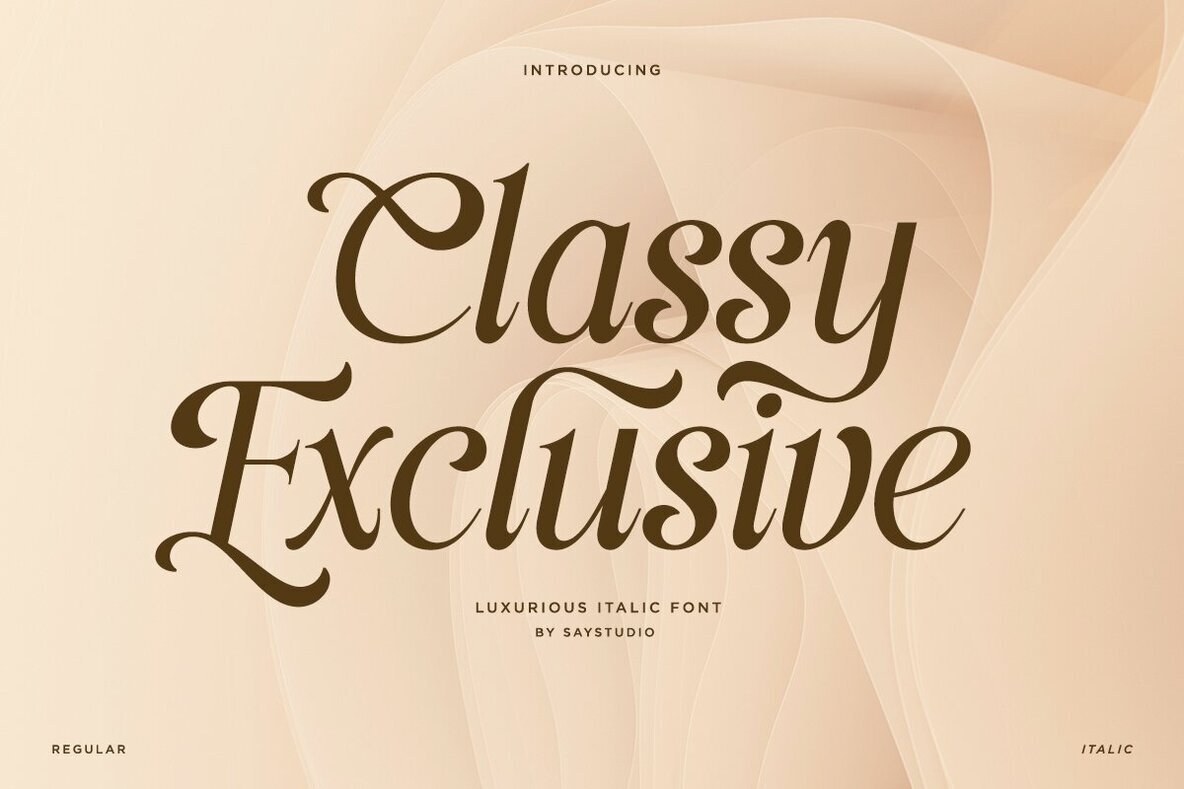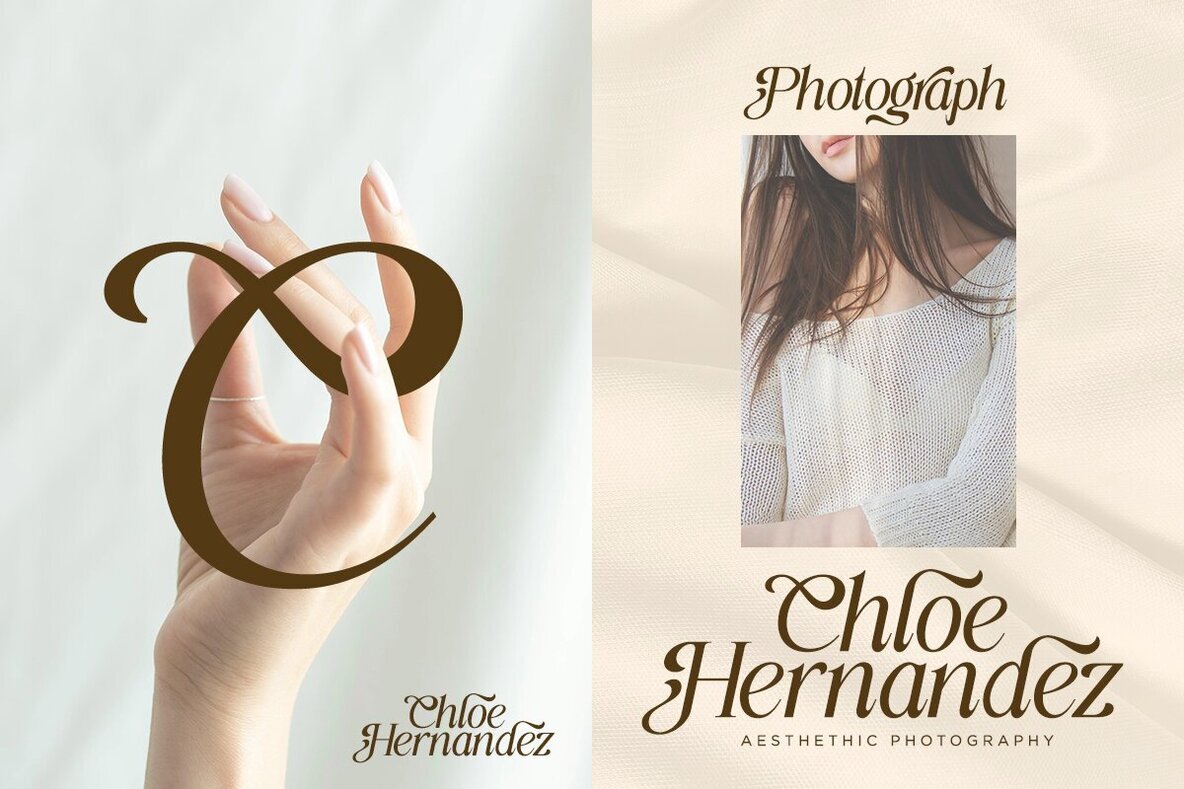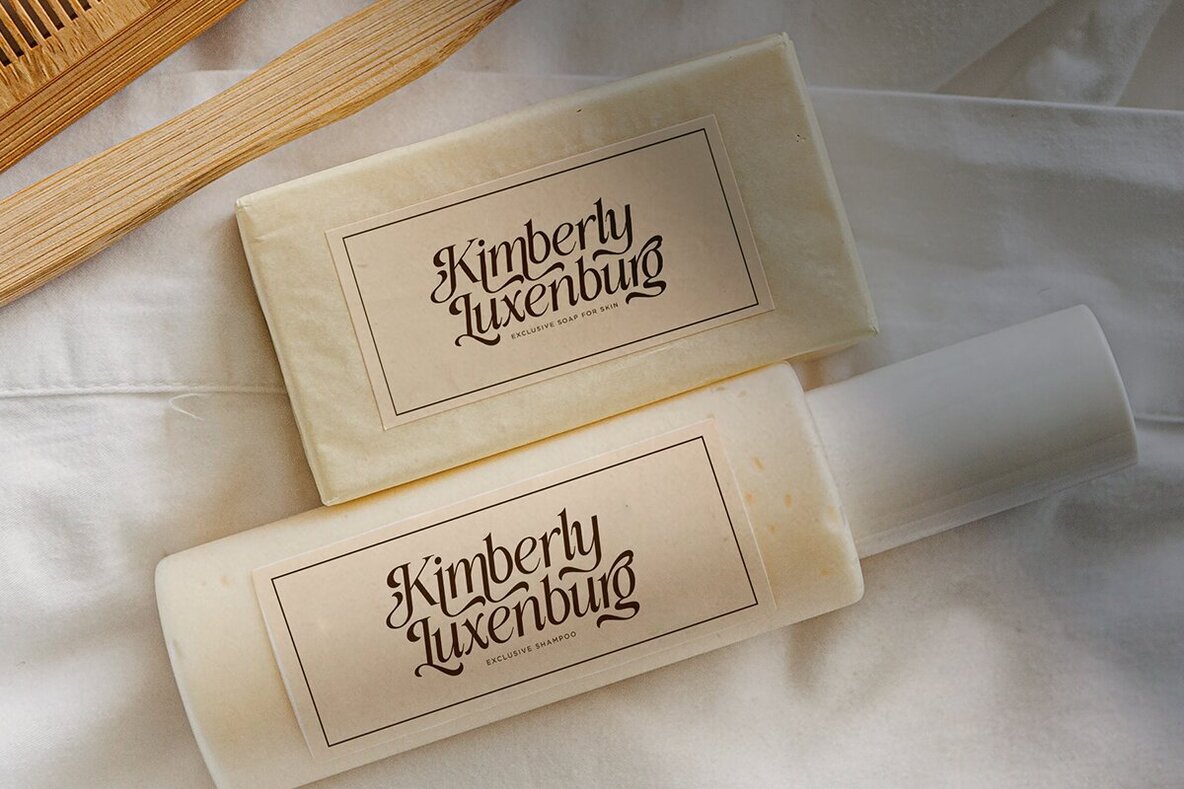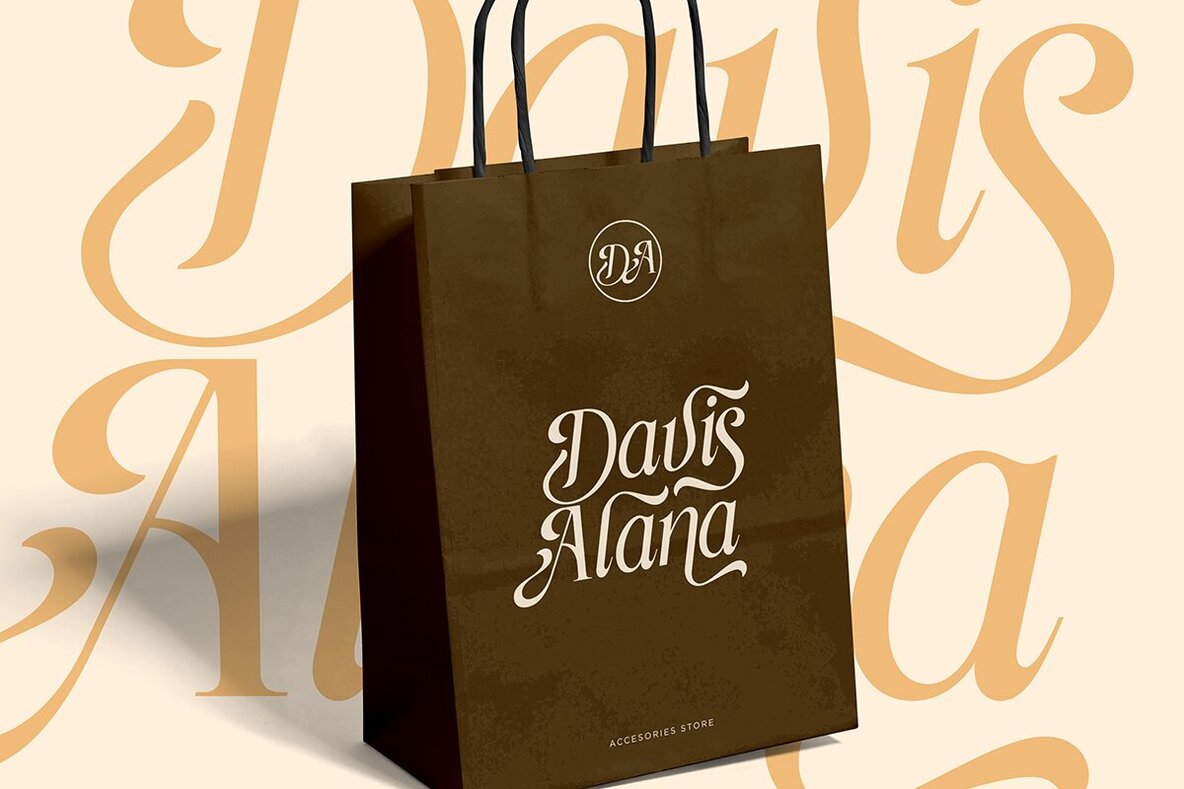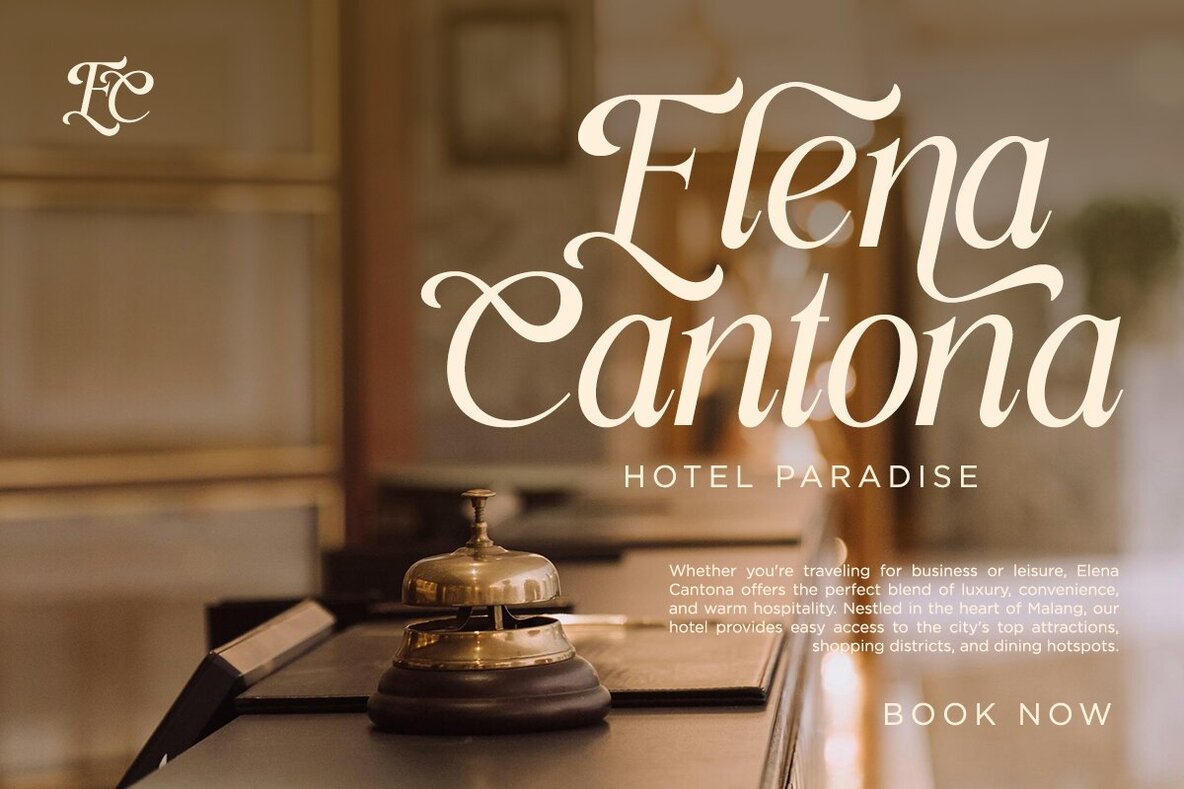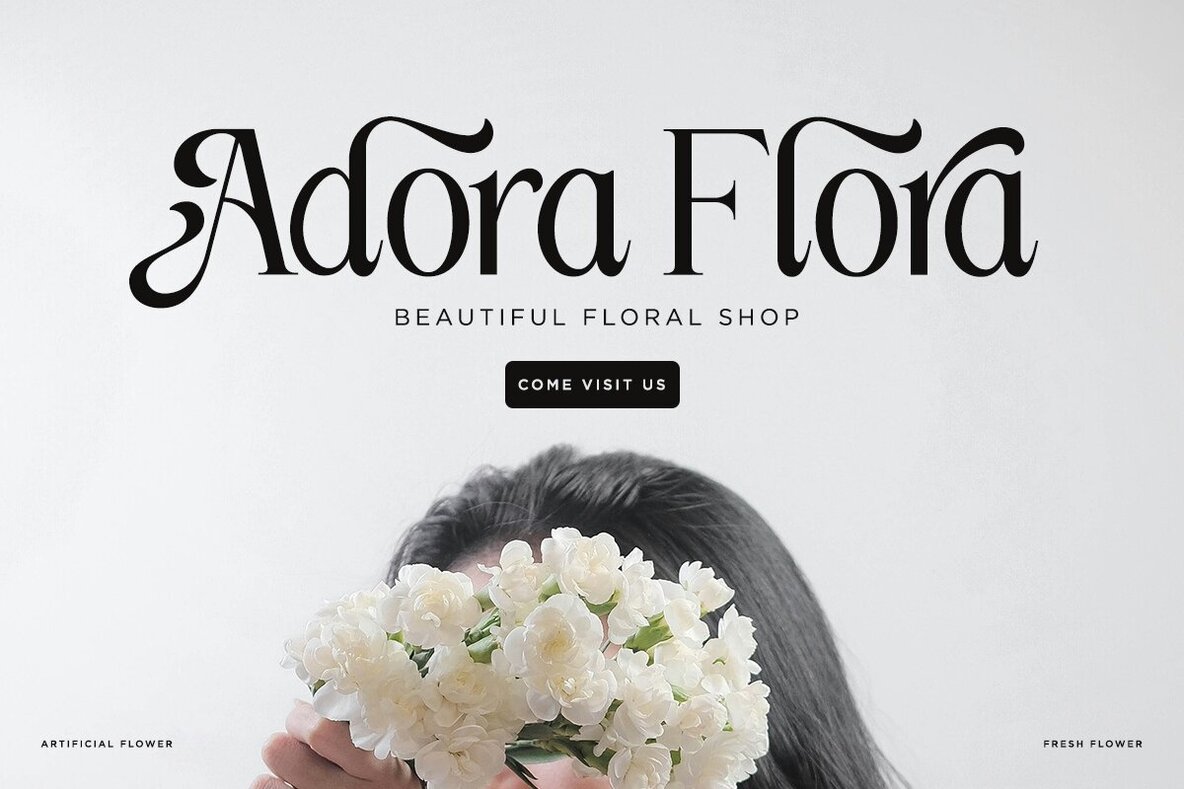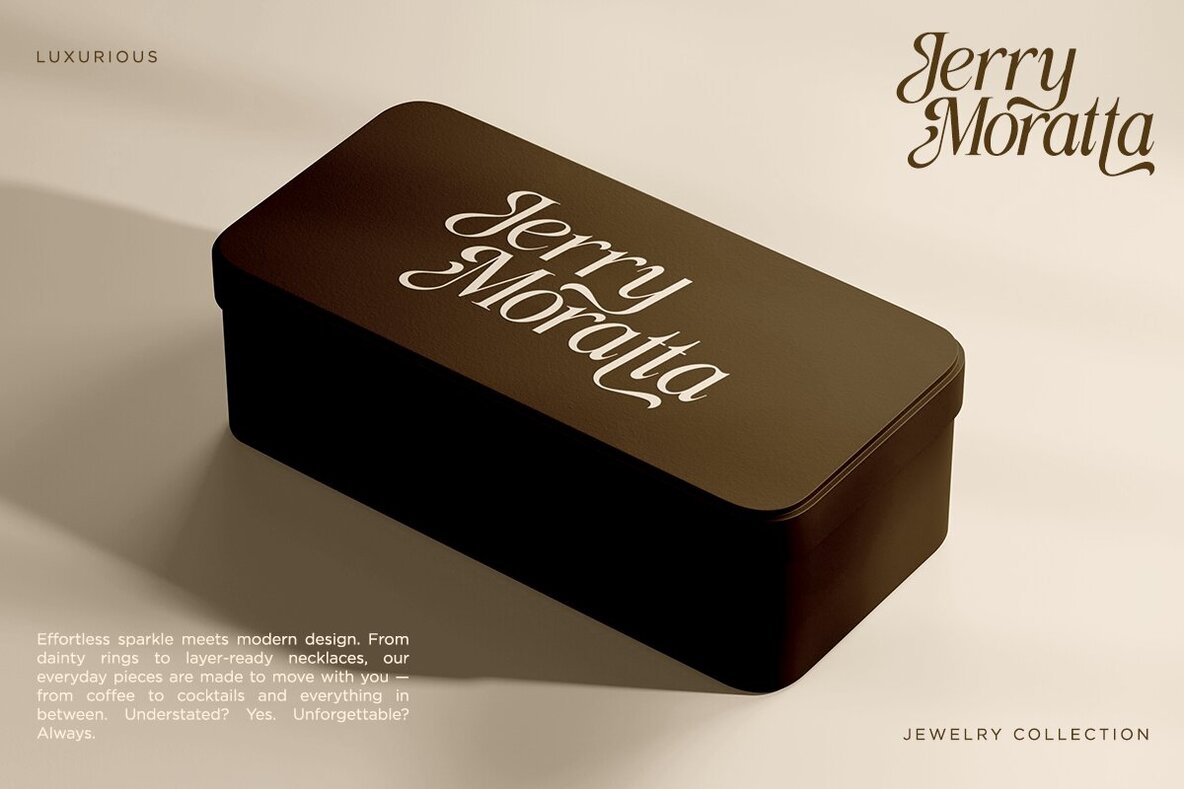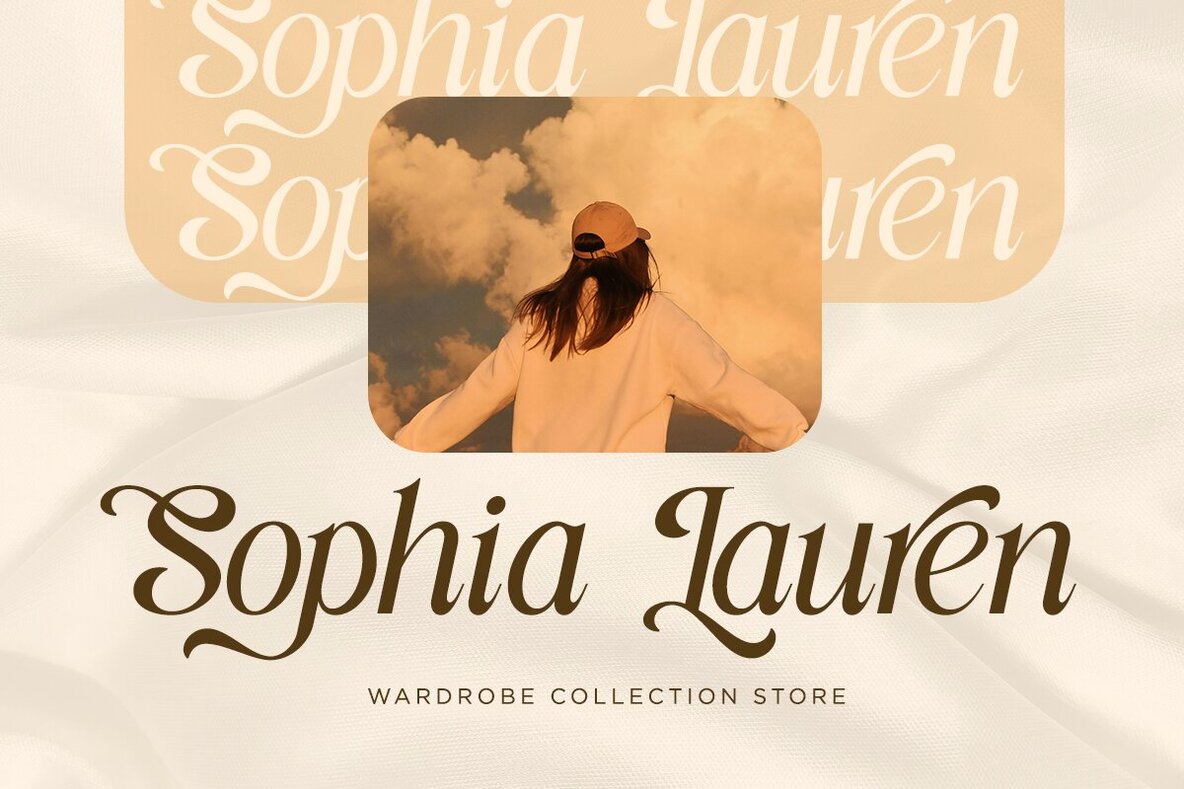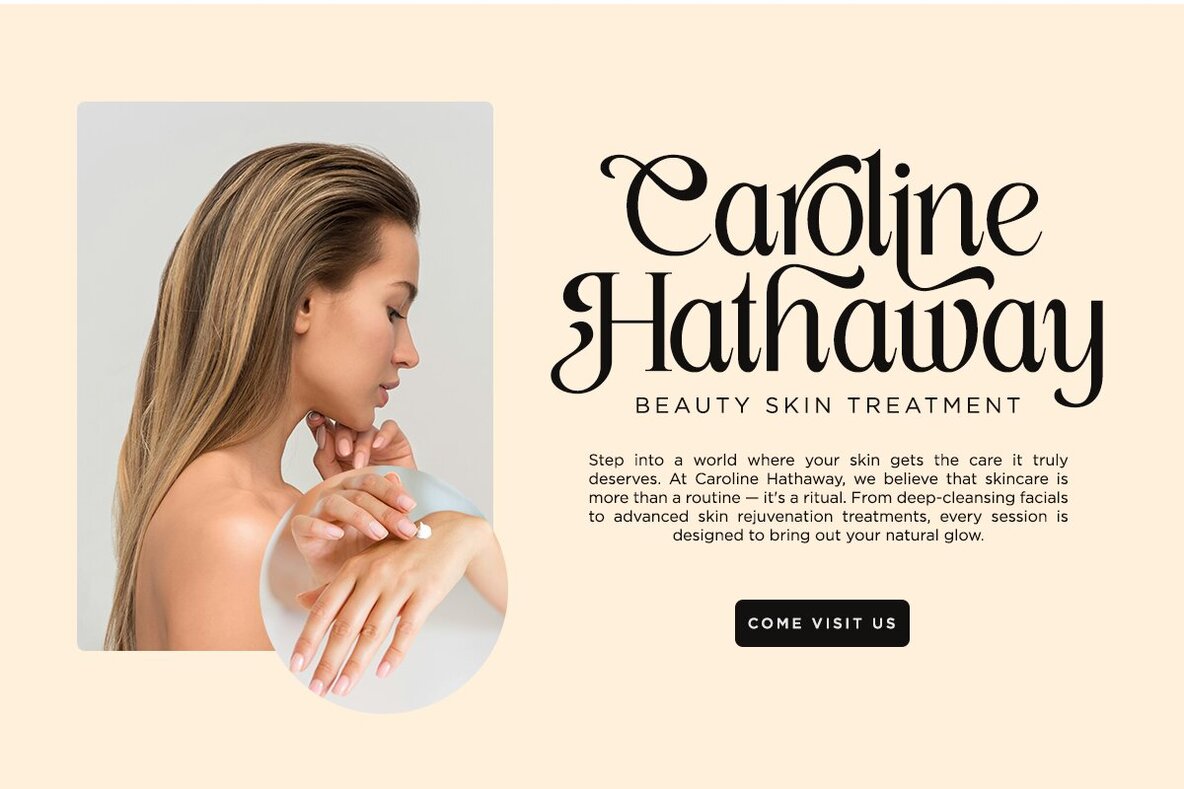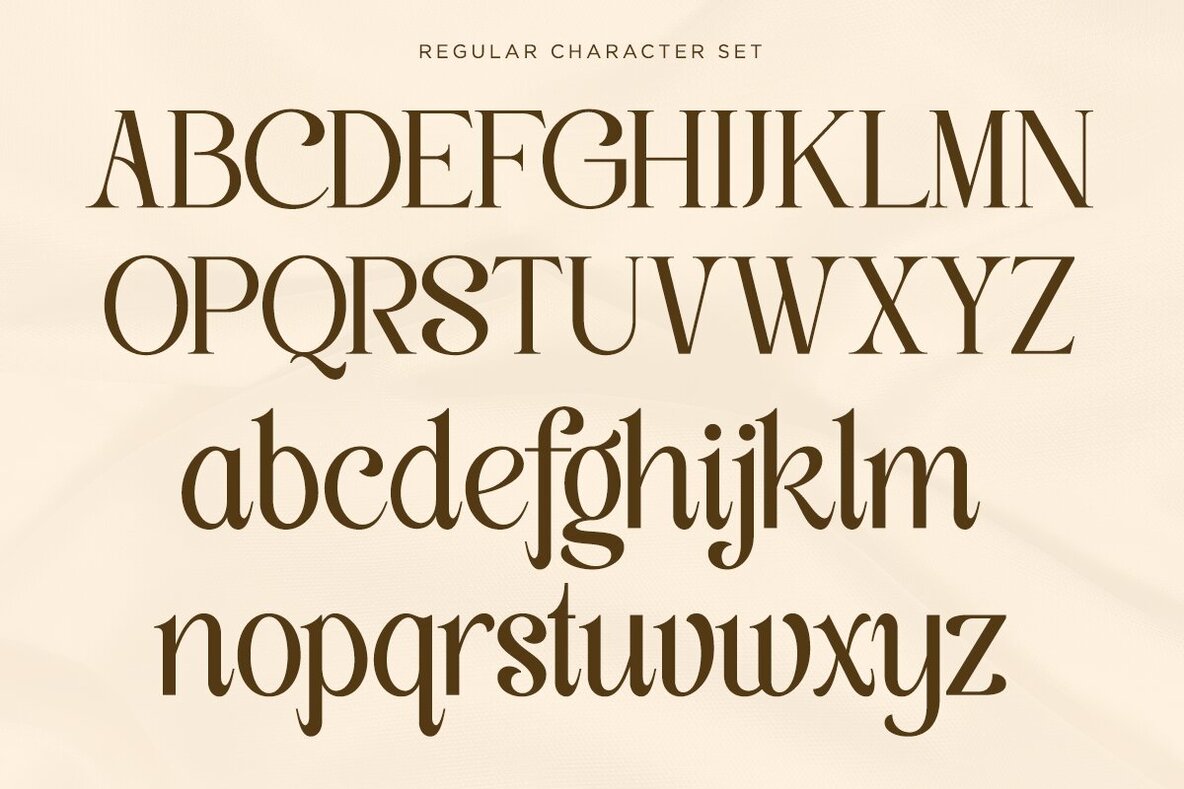
Classy Exclusive Font
Classy Exclusive brings a luxurious serif design with an elegant italic style, fusing classic calligraphic influences and modern sophistication. This high-impact typeface captures the grace of traditional lettering, ideal for premium branding, fashion editorials, and upscale invitation designs. Each character is carefully crafted with sweeping calligraphic strokes, offering refined detail that stands out without overwhelming your layout. The collection includes both Regular and Italic styles, providing flexibility for various design needs. Classy Exclusive adds an unmistakable sense of romance and structure, making it a solid choice for editorial layouts, fashion packaging, and identity projects that require both poise and clarity.Classy Exclusive Serif Font